Tofu
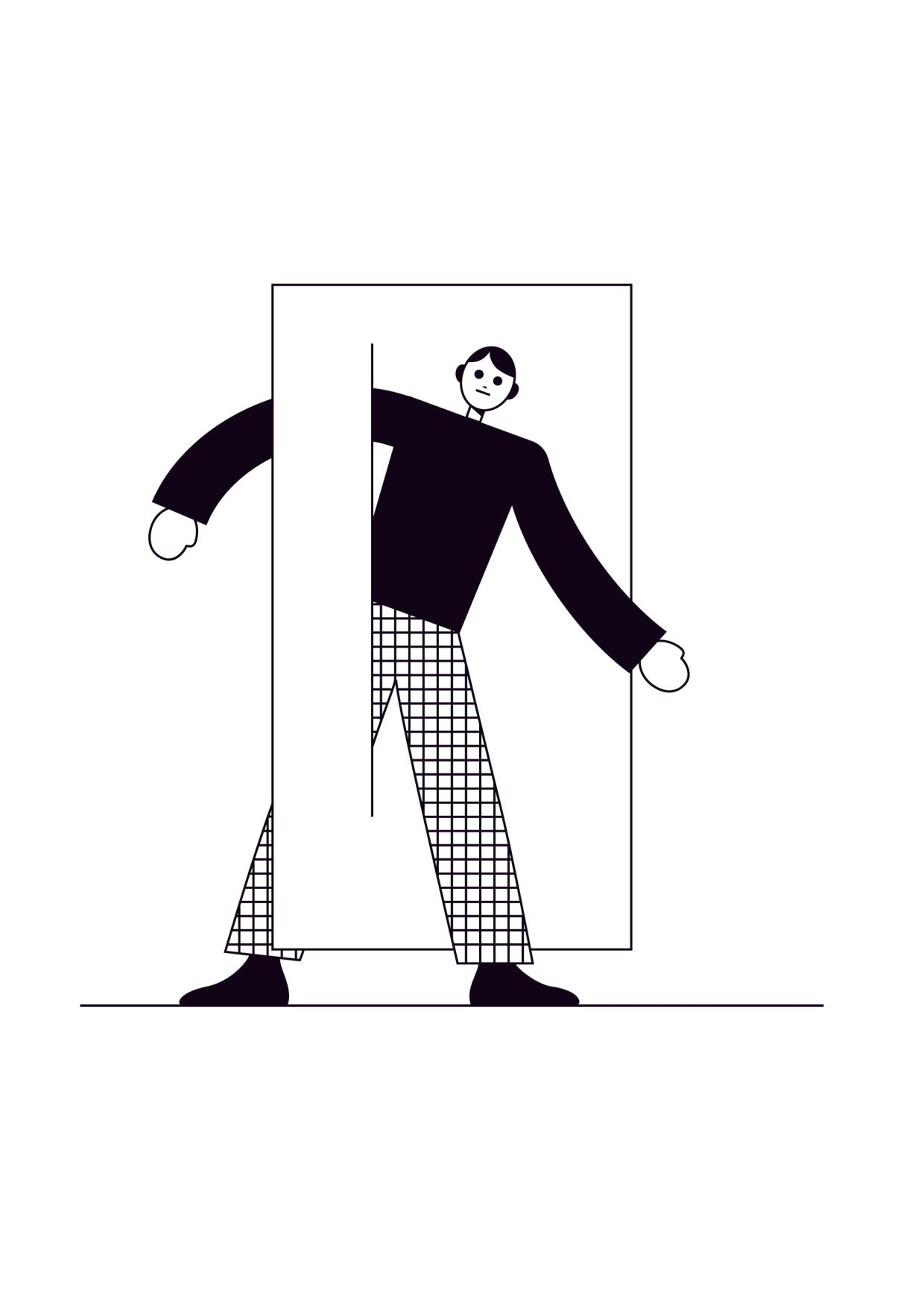
Tofu is the placeholder symbol that appears when a character cannot be displayed because the font in use doesn’t support it (not existing in the font). Instead of the intended glyph, the reader sees a small rectangle—often empty or filled with a cross, question mark, or other marker.
THE NAME
The word tofu comes from the visual resemblance of the small blank rectangles to blocks of tofu.
AVOIDING TOFUS
To avoid showing a tofu, operating systems implement font fallback mechanisms to replace the missing glyph. If no suitable glyph is found in any available font, then the tofu placeholder is displayed. Sometimes, an entire script can be missing, resulting in a display of long lines of tofus.
Several initiatives exist to reduce the display of tofus. Apple developed the Last Resort font (first available in Mac OS 8.5 in 1998), which displays symbols representing the script and Unicode blocks of missing characters. This helps users to identify which character are missing. Adobe and Google created the Noto (named from “no tofu” expression, first published in 2013) typeface family to provide a coverage for all existing Unicode characters.
FONT ENGINEERING HINT
This fallback system is layered and can sometimes be confusing:
• tofu is what the users see; .notdef is the name of the glyph in fonts. As per the OpenType specifications, every font must contain a .notdef glyph as the first glyph (index 0). Since this glyph isn’t a character, it is not assigned a Unicode code point and therefore doesn’t appear in the cmap (Character-to-Glyph Mapping) table. If a shaping or rendering engine can’t find a glyph for a requested code point in the cmap, it falls back to glyph index 0.
• some environments always substitute the .notdef glyph from the selected font. Others instead use a system-supplied .notdef from a dedicated fallback font (like the Last Resort font), so the tofu can always appear with a consistent design in that environment.
• certain applications (like Adobe InDesign) bypass system font fallback entirely and always display the .notdef glyph from the active font when a glyph is missing.